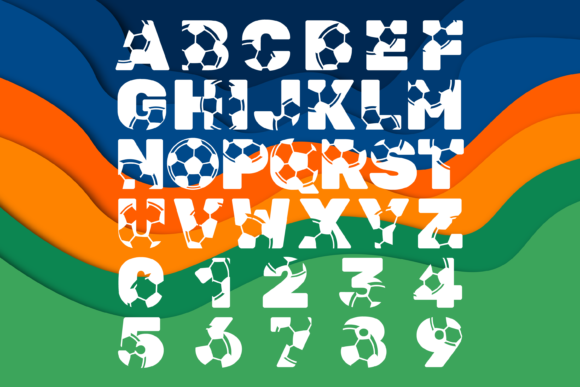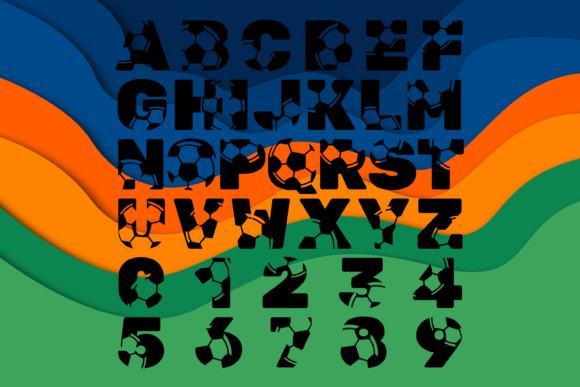
The Ultimate Game-Changer for Designers: Kick off Font
Have you ever sat at your desk, staring at a blank screen, trying to come up with the perfect idea? You’re not alone. As creatives, we’ve all been there. But what if you had the perfect tool to help spark your imagination and bring your ideas to life? Enter Kick off Font, a modern and whimsical display font that’s about to become your new best friend.
Kick off Font is more than just a font – it’s a key to unlocking your creative potential. With its sleek and playful style, it’s the perfect addition to any design project. Whether you’re a seasoned designer or just starting out, Kick off Font is a valuable asset that will help you stand out from the crowd and take your work to the next level.
Get ready to kick off your creative journey with Kick off Font and discover a whole new world of design possibilities.
Kick Off Font Key Features
- Font Family: Kick Off Font is a modern sans-serif font designed for sports and action-related content.
- Resolution: Kick Off Font is designed to be highly legible at high resolutions, making it ideal for use in digital media and print.
- Unique Characteristics: Kick Off Font features a unique blend of modern and athletic typography, with bold and dynamic letterforms that evoke a sense of energy and movement.
- Language Support: Kick Off Font supports a wide range of languages, including English, Spanish, French, German, and many others, making it a versatile choice for global branding and marketing campaigns.
Kick off Font Review
Overall, I was excited to dive into the Kick off Font, but unfortunately, it didn’t quite live up to my expectations. However, there are a few aspects that shine through, making it worth mentioning.
- The playful feel is definitely a standout feature. It’s perfect for creating a lighthearted and approachable atmosphere in your design.
- The open lines make it easy to read, even in smaller font sizes.
- The versatility of the font is great, allowing you to use it for a wide range of projects, from blog posts to social media graphics.
- The limited character set is a significant drawback, making it difficult to use for projects that require a large number of custom characters.
- The font size limitations can make it difficult to scale the font up or down without losing clarity.
- The lack of bold or italic variations can make it difficult to add emphasis or create visual hierarchy in your design.
Overall, the Kick off Font has some great qualities, but its limitations hold it back from being a top choice for designers. With some additional development, it could be a fantastic option, but for now, I’d recommend exploring other options.
Tips for Getting the Most Out of Kick off Font
Here are some tips to help you get the most out of Kick off Font:
- Use Kick off Font in conjunction with other bold and playful fonts to create a visually appealing design.
- Experiment with different font sizes and styles to create emphasis and hierarchy in your design.
- Use Kick off Font for headings and titles to add a touch of elegance and sophistication.
Common Use Cases for Kick off Font